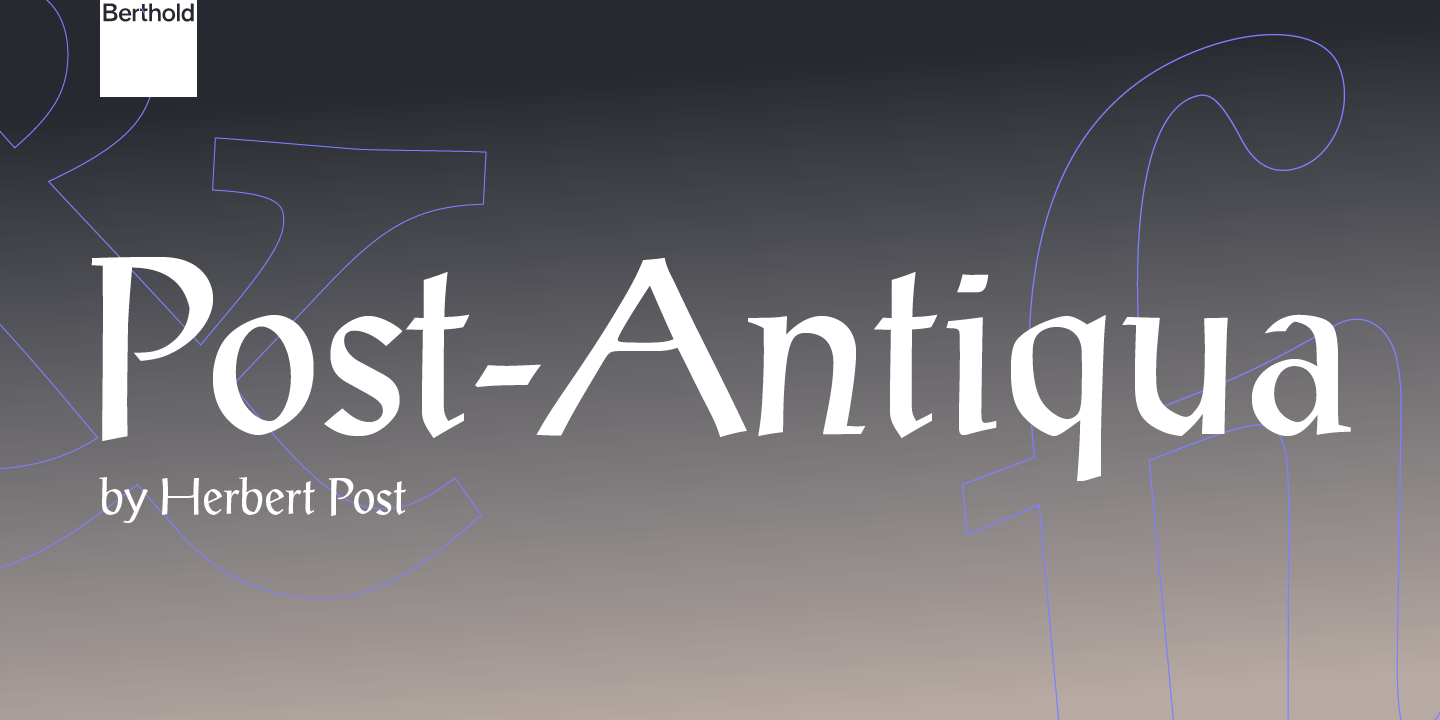
Post-Antiqua Font is perfect for classical literature publications, academic journal layouts, historical document reproductions, university press materials, scholarly research papers, cultural heritage museums, classical music programs, art history textbooks, traditional publishing houses, philosophical treatises, and any project that requires timeless classical character with scholarly antiquity appeal.
What makes Post-Antiqua Font exciting is its masterful preservation of classical typography heritage while embracing post-modern functionality through refined letterforms that bridge ancient wisdom and contemporary scholarship. This distinguished typeface features traditional proportions with scholarly elegance that convey intellectual authority while maintaining exceptional readability for modern academic applications. The font's post-classical character adds instant scholarly credibility and academic appeal to any design, making it perfect for institutions celebrating intellectual tradition and classical learning excellence.
Post-Antiqua Font comes in multiple font families including Regular, Bold, Light, Italic, Medium, and Scholarly variations, offering designers comprehensive options to create academic compositions and achieve the perfect classical aesthetic for education-focused design projects.
Whether you're developing academic institution branding, creating scholarly publication materials, or designing classical education campaigns, Post-Antiqua Font Free Download provides the ideal solution for projects demanding authentic classical character and scholarly sophistication. This refined typeface excels in both print and digital applications where academic presence is essential, ensuring your designs communicate intellectual excellence and classical learning values. The traditional character and scholarly styling of Post-Antiqua Font make it an indispensable tool for designers who prioritize academic tradition, classical scholarship, and intellectual heritage preservation in their typographic selections.